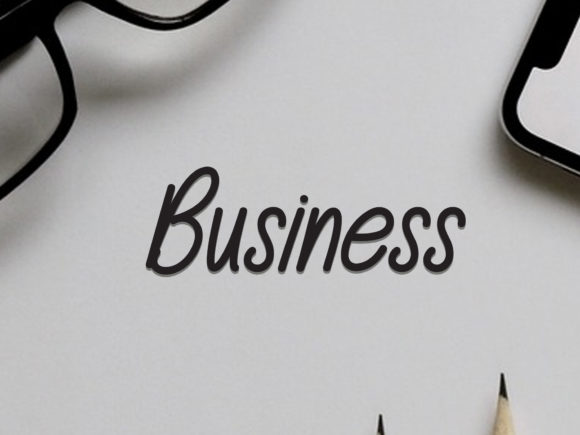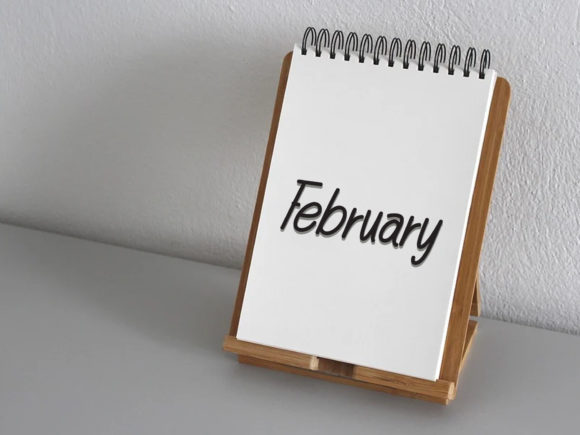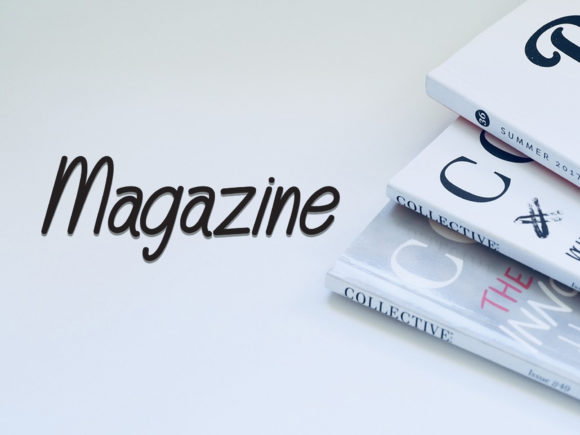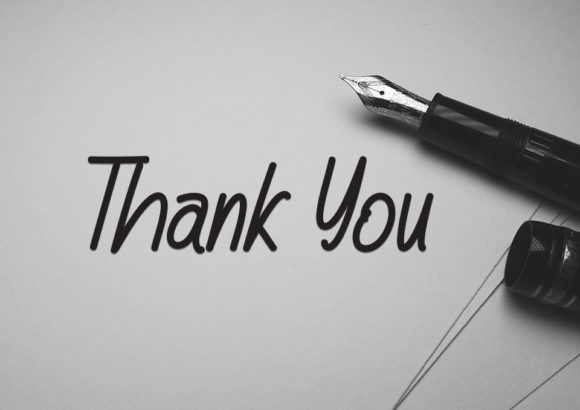
Discover the Charm of Gabriella Font: A Unique Handwritten Style
Are you tired of using the same old fonts for your designs and crafts? Look no further than the Gabriella font, a beautiful and unique handwritten style that is sure to add a touch of elegance and personality to your projects. In this article, we’ll take a closer look at the Gabriella font, its features, and how you can use it to elevate your designs and crafts.
What is Gabriella Font?
Gabriella is a carefully crafted handwritten font that is designed to produce a specific aesthetic. With its flowing lines and delicate curves, this font is perfect for adding a touch of whimsy and sophistication to your designs. Whether you’re creating titles, invitations, letters, or other types of products, Gabriella font is an excellent choice.
Key Features of Gabriella Font
- Unique Handwritten Style: Gabriella font boasts a distinctive handwritten style that sets it apart from other fonts. Its elegant and flowing lines make it perfect for designs that require a personal touch.
- Highly Versatile: This font can be used for a wide range of projects, from titles and invitations to letters and other types of products.
- Easily Readable: Despite its elegant and cursive nature, Gabriella font is highly readable, making it suitable for both digital and print designs.
How to Use Gabriella Font in Your Designs
Gabriella font is an incredibly versatile font that can be used in a variety of design projects. Here are a few ideas to get you started:
- Wedding Invitations: Add a touch of romance and elegance to your wedding invitations with Gabriella font.
- Party Decorations: Use Gabriella font to create beautiful party decorations, such as banners, garlands, and more.
- Branding and Packaging: Add a personal touch to your branding and packaging with Gabriella font.
- Digital Designs: Use Gabriella font in your digital designs, such as social media graphics, blog posts, and more.
Tips for Working with Gabriella Font
Here are a few tips to keep in mind when working with Gabriella font:
- Pair with Other Fonts: Experiment with pairing Gabriella font with other fonts to create a unique and visually appealing design.
- Adjust Font Size and Color: Play around with different font sizes and colors to add depth and interest to your design.
- Use in Combination with Images: Combine Gabriella font with beautiful images to create stunning designs.
In conclusion, Gabriella font is a unique and beautiful handwritten font that is perfect for designers and crafters looking to add a touch of elegance and personality to their projects. With its highly versatile nature and ease of use, Gabriella font is an excellent choice for a wide range of design applications. So why not give it a try and see how it can elevate your designs and crafts?
- What type of font is Gabriella?: Gabriella is a handwritten font.